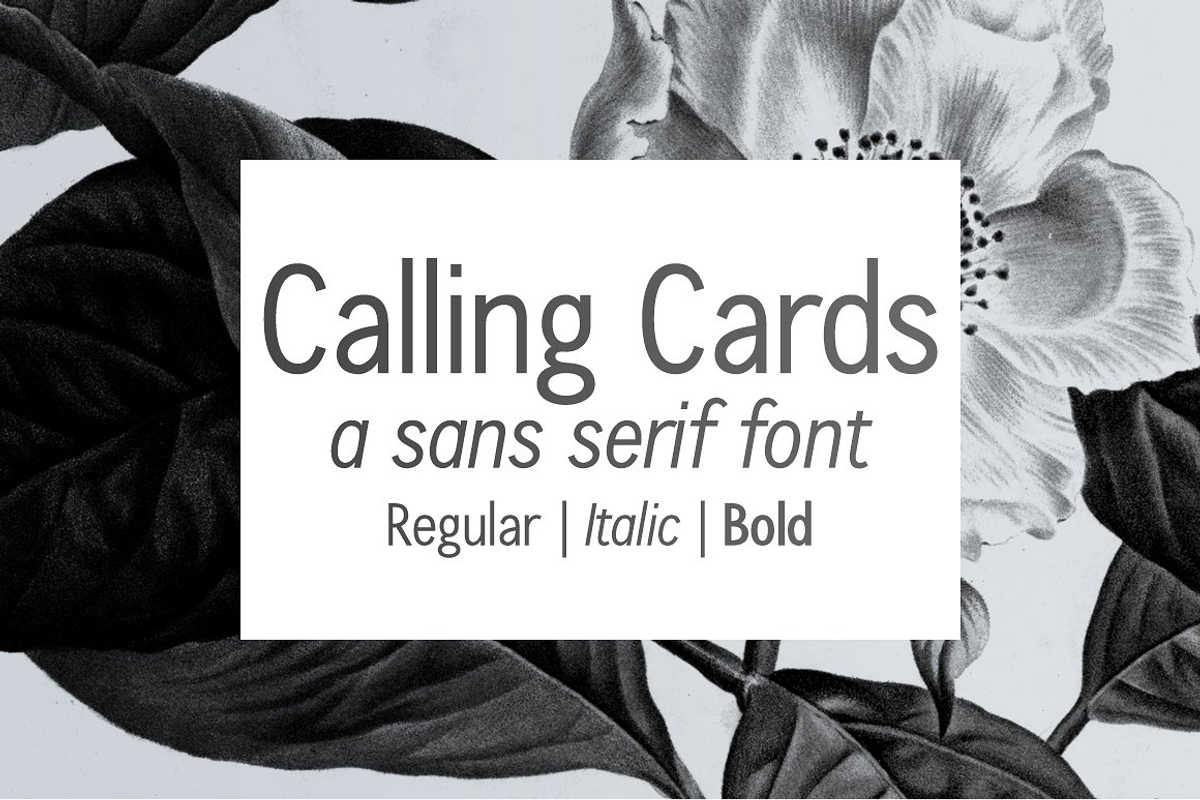
Calling Cards Sans Serif Font Free Download
Calling Cards Sans Serif Font Free Download is a clean and modern sans-serif typeface designed for versatility and simplicity. With its sharp lines, geometric structure, and high readability, this font is perfect for logos, branding, business cards, websites, posters, and any project that requires a sleek, professional look.
Its minimalist style makes it an ideal choice for corporate and creative designs that need to maintain a modern yet approachable aesthetic. Whether you're designing for a tech brand, a startup, or a high-end product, Calling Cards ensures clarity and sophistication.